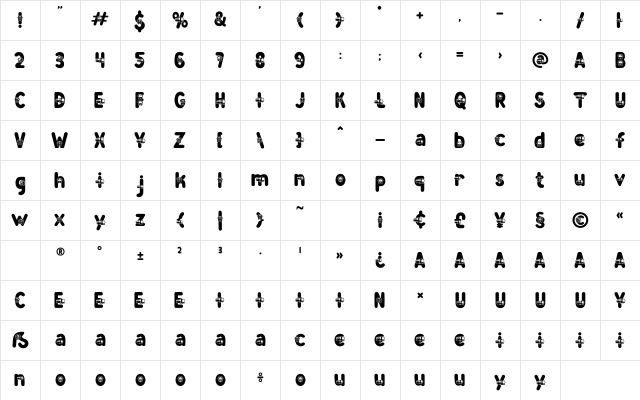
Complete Zany Route Train glyph index. Displaying only characters natively supported by Zany Route Train font.
Zany Route is a composed and adaptable typeface that performs quietly and consistently across a wide range of design contexts.